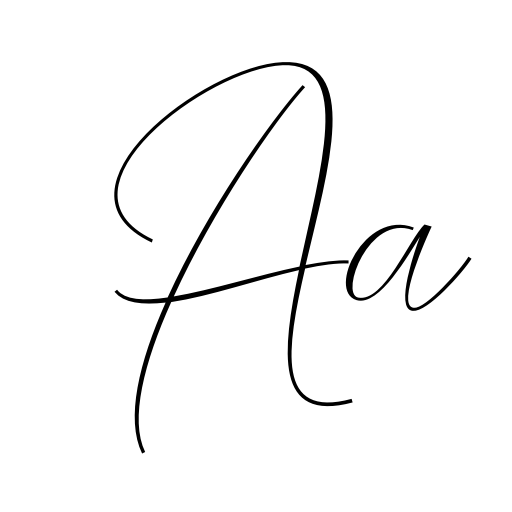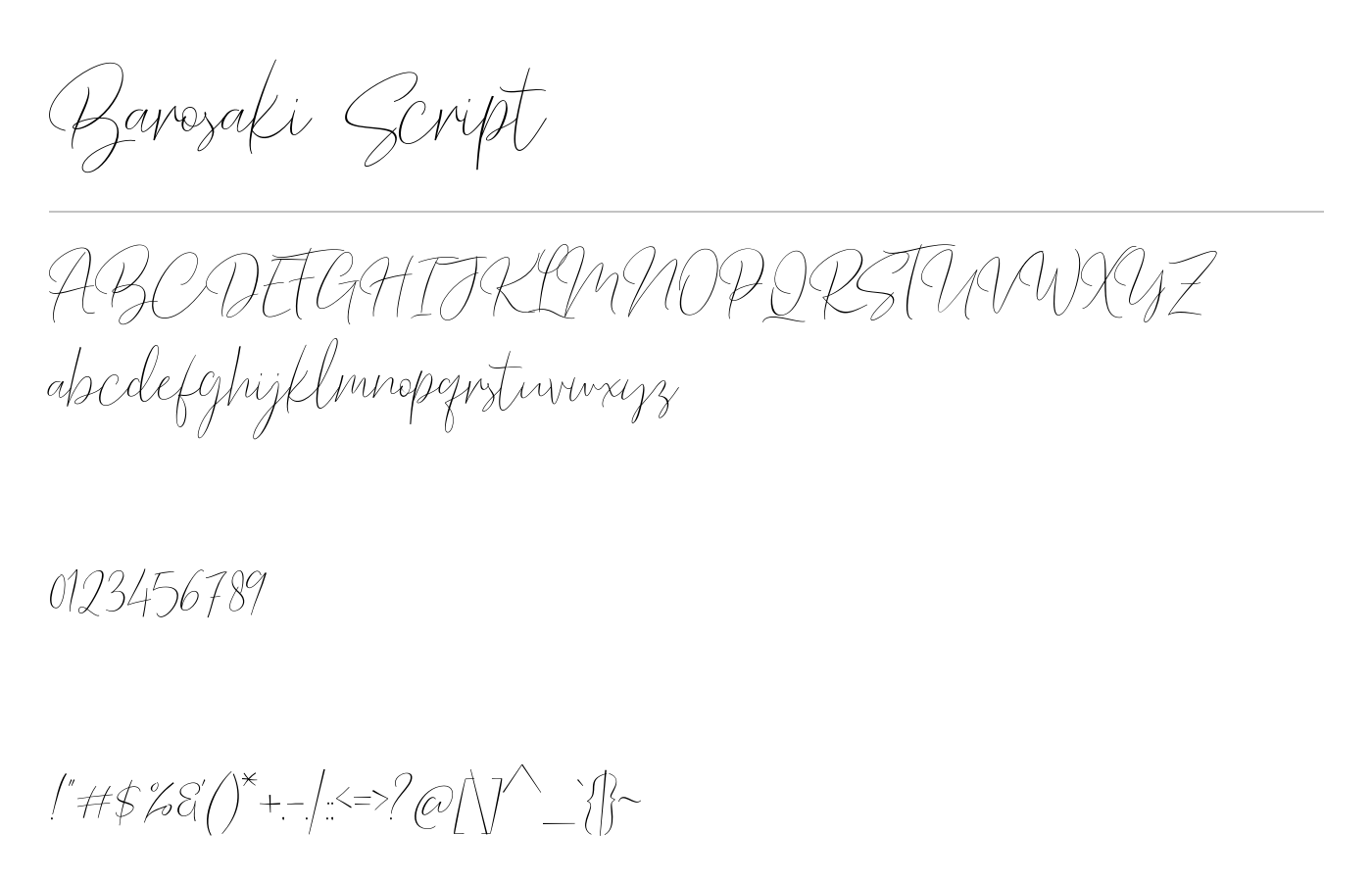
Barosaki Script is a delicate and elegant handwritten script font featuring fine, flowing strokes with a light weight and high contrast that give it a graceful, airy feel. Its tall, slender letterforms with subtle flourishes work beautifully for sophisticated branding, wedding invitations, and stylish editorial projects where a touch of refined personality is desired. This font excels in large sizes for headlines, logos, and packaging, adding a personal and artistic flair to any design.
Barosaki Script Font
About Barosaki Script Font
| Font family | Barosaki Script Font |
| Designer | Ferdiansyah_PointLabSTD |